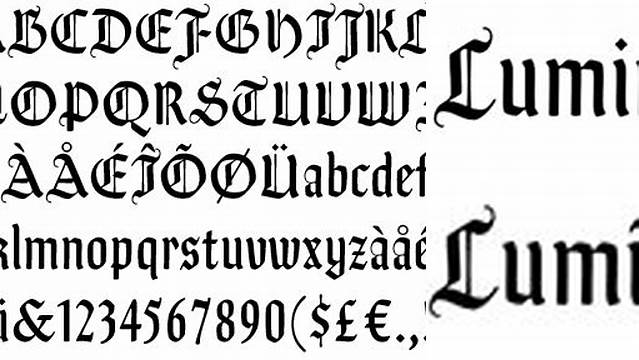
Gotica Lumina: Free Font Download & Usage Guide
Hey guys! Ever stumbled upon a font that just clicks? Well, let's dive into the world of Gotica Lumina, a fantastic free font that might just be the missing piece in your design puzzle. This guide will walk you through everything you need to know, from downloading it to making the most of it in your projects. Let’s get started!
1. What is Gotica Lumina Font?
Gotica Lumina is more than just a font; it’s a vibe! This free font blends classic gothic elements with a modern touch, making it versatile for various design applications. Think of it as the cool kid in the font family – stylish but still approachable. When we talk about Gotica Lumina, we're not just discussing its aesthetic appeal; we're also diving into its functionality and how it can enhance your creative work. Imagine using Gotica Lumina in a poster; the bold strokes and elegant curves instantly grab attention. Or picture it in a logo, where its unique character helps a brand stand out. It’s this adaptability that makes Gotica Lumina such a popular choice among designers. But what exactly makes it so special? The font's design incorporates sharp, angular lines reminiscent of traditional gothic scripts, but it also softens these elements with subtle curves and balanced spacing. This blend creates a typeface that feels both powerful and refined, ensuring it doesn't come across as too harsh or intimidating. The details in Gotica Lumina are what truly set it apart. Each character is carefully crafted, paying attention to the nuances of letterforms and their relationships within words. This meticulous design process results in a font that is not only visually striking but also highly legible, making it suitable for a wide range of uses. Whether you’re designing a website header, crafting a book cover, or even creating a simple invitation, the clarity and elegance of Gotica Lumina shine through. And because it's a free font, it offers incredible value without the hefty price tag. This accessibility means that designers of all levels, from students to seasoned professionals, can incorporate Gotica Lumina into their projects. It’s a democratizing force in the design world, allowing creativity to flourish without financial barriers. So, whether you're looking to add a touch of sophistication, a hint of drama, or simply a unique flair to your work, Gotica Lumina is a font that deserves a place in your toolkit. Its blend of gothic and modern elements makes it a versatile and powerful choice for any creative project.
2. Key Features of Gotica Lumina
Alright, let’s break down what makes Gotica Lumina tick. This font isn't just pretty; it's packed with features that make it a designer's best friend. When you start exploring the key features of Gotica Lumina, you'll quickly realize that it's not just about aesthetics; it's about functionality and versatility too. This font offers a blend of design elements that make it suitable for a wide range of projects, from branding to editorial design. One of the first things you'll notice about Gotica Lumina is its unique blend of gothic and contemporary styles. The font features sharp, angular strokes that are characteristic of gothic typefaces, but it also incorporates modern curves and lines that give it a fresh and updated feel. This combination makes it a standout choice for projects that need a touch of elegance and sophistication. Another key feature is its legibility. While some gothic fonts can be difficult to read, Gotica Lumina is designed with clarity in mind. The spacing between letters and the overall shape of each character have been carefully considered to ensure that text remains readable, even at smaller sizes. This makes it a great option for body text as well as headlines. Gotica Lumina also boasts a comprehensive character set, including uppercase and lowercase letters, numerals, punctuation marks, and a variety of special characters. This ensures that you have everything you need to create complete and polished designs. Whether you're working on a logo, a website, or a print project, you'll find that Gotica Lumina has the characters you need. Furthermore, the font's adaptability is a major asset. It works well in both digital and print formats, making it a versatile choice for any project. It's also compatible with a wide range of design software, including Adobe Photoshop, Illustrator, and InDesign, so you can easily incorporate it into your existing workflow. And let's not forget that Gotica Lumina is a free font. This means you can use it for both personal and commercial projects without having to worry about licensing fees. This accessibility makes it an excellent choice for students, freelancers, and anyone looking to expand their font library without breaking the bank. In summary, the key features of Gotica Lumina include its unique gothic-modern blend, excellent legibility, comprehensive character set, adaptability across different formats, and, of course, its cost-free availability. These features combine to make it a powerful and versatile tool for any designer.